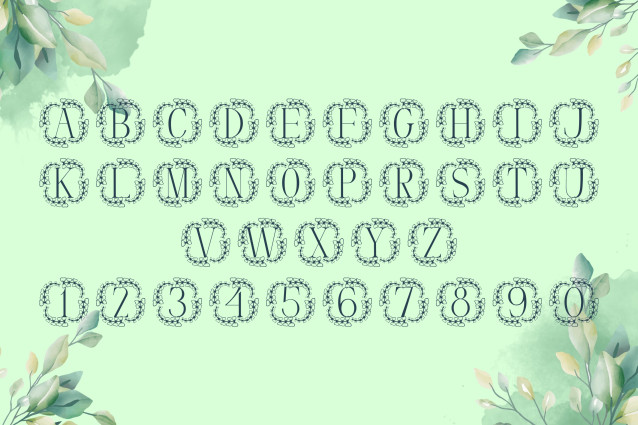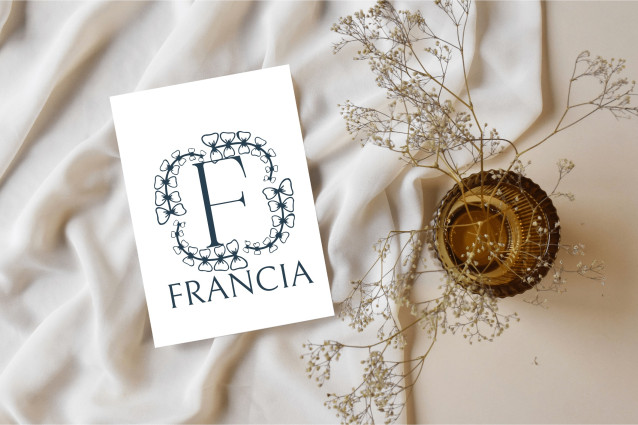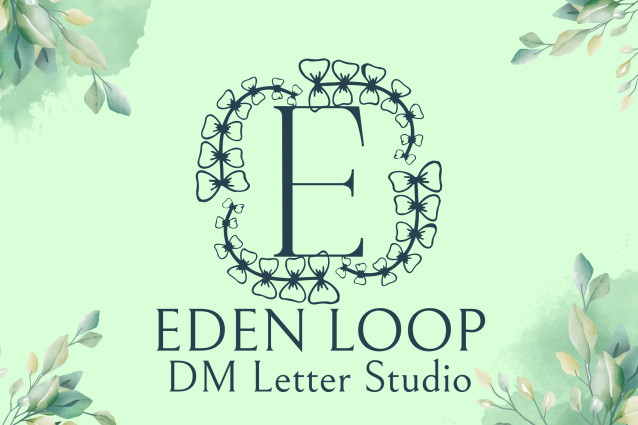
Eden Loop Monogram Font
Eden Loop Monogram Font is a sophisticated serif font featuring graceful loops and ornamental curves that evoke timeless elegance. Each uppercase letter is adorned with delicate flourishes, making it ideal for creating luxurious monograms, signature logos, wedding branding, and refined personal projects. With its classic base and artistic loops, this font delivers a perfect blend of tradition and charm.